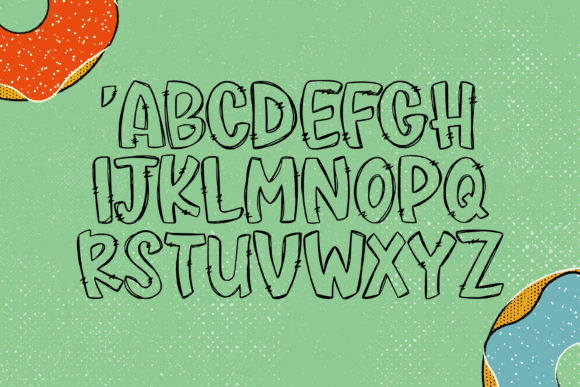
The Donut Doodle Font: A Sweet Addition to Your Design Toolbox
I’ll never forget the time I was working on a project for a client’s bakery, trying to create a whimsical logo that would make their brand stand out. I had a clear vision of what I wanted to achieve, but the font I was using just wasn’t cutting it. The design felt flat, and the text lacked personality. That’s when I stumbled upon the Donut Doodle font, and it was love at first sight! 💕
Donut Doodle is a cute hand-drawn display font that’s perfect for creating outstanding designs. Its playful, doodle-like style adds a touch of whimsy to any project, making it ideal for designers, crafters, and creative hobbyists. In this article, we’ll dive into the world of Donut Doodle, exploring its features, how to use it, and some similar fonts you might love.
- ✅ The font’s hand-drawn style gives it a unique, personal touch that’s hard to find in digital fonts.
- ✅ Donut Doodle is incredibly versatile, making it perfect for a wide range of projects, from t-shirts and holiday cards to books and mugs.
- ✅ The font is easy to read, even in larger sizes, making it perfect for headlines and titles.
- ✅ The OpenType features, including glyphs and stylistic alternates, offer a lot of creative freedom.
- ⚠️ Some users might find the font a bit too playful or childish for certain projects.
- ⚠️ The font’s doodle-like style might not be the best fit for very formal or professional designs.
The Story Behind Donut Doodle
Donut Doodle was created by a talented font designer who wanted to capture the whimsy and playfulness of hand-drawn lettering. Inspired by the doodles and scribbles of childhood, this font is perfect for designers who want to add a touch of personality to their work.
Q: Can I use Donut Doodle for my branding and logo design?
A: Absolutely! Donut Doodle’s unique style makes it an excellent choice for branding and logo design, especially for businesses that want to stand out with a playful, creative vibe.
Q: Does Donut Doodle support OpenType features?
A: Yes, Donut Doodle supports OpenType features, including glyphs, stylistic alternates, and ligatures, giving you a wide range of creative possibilities.